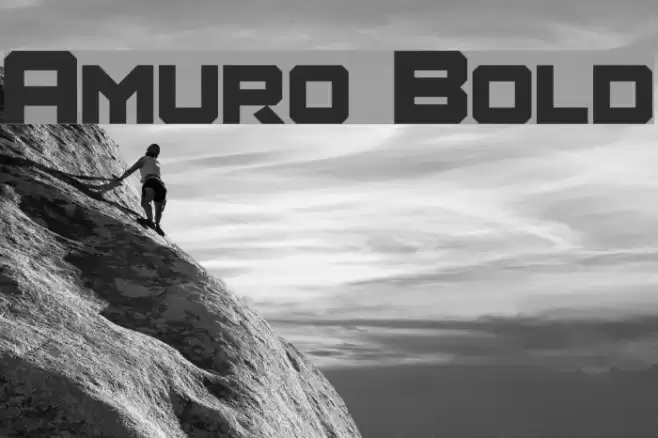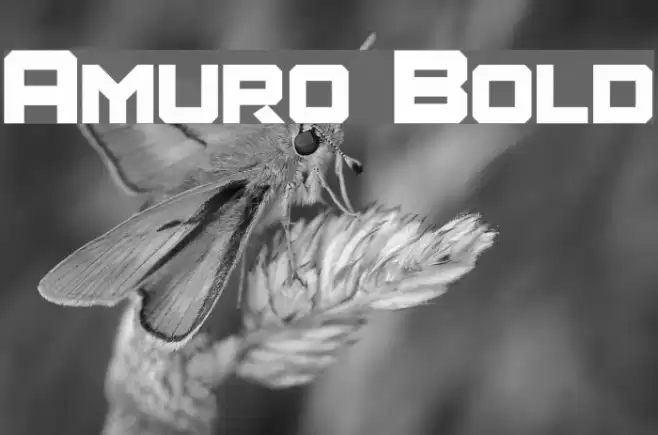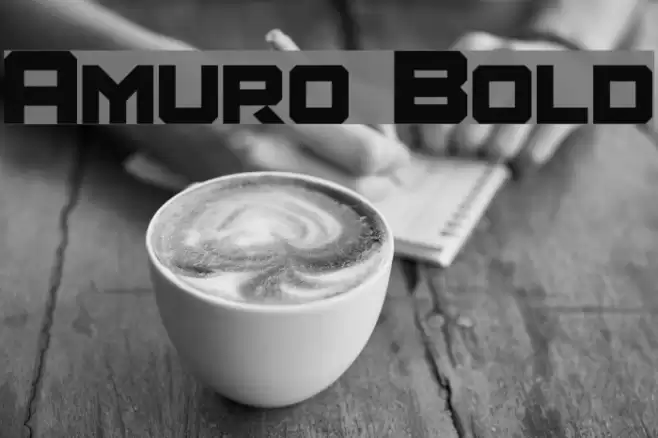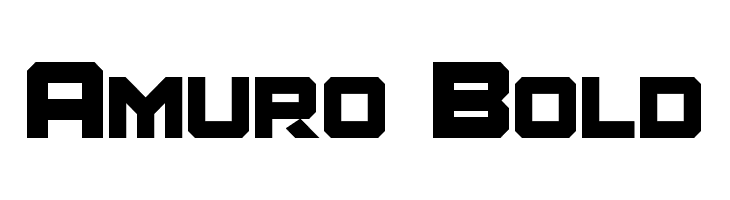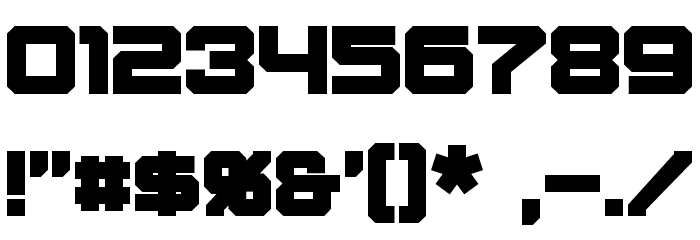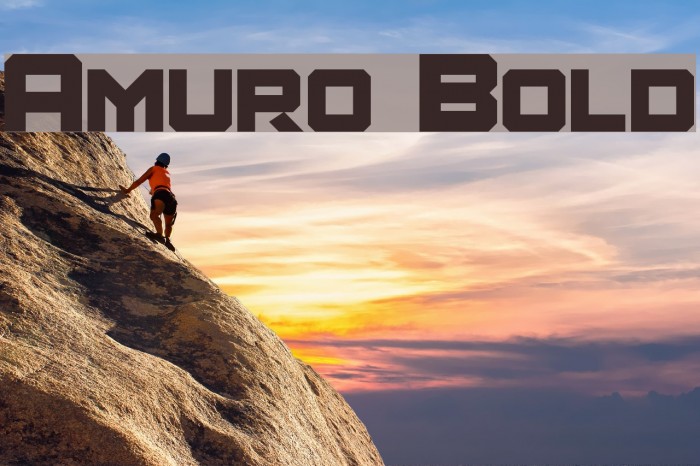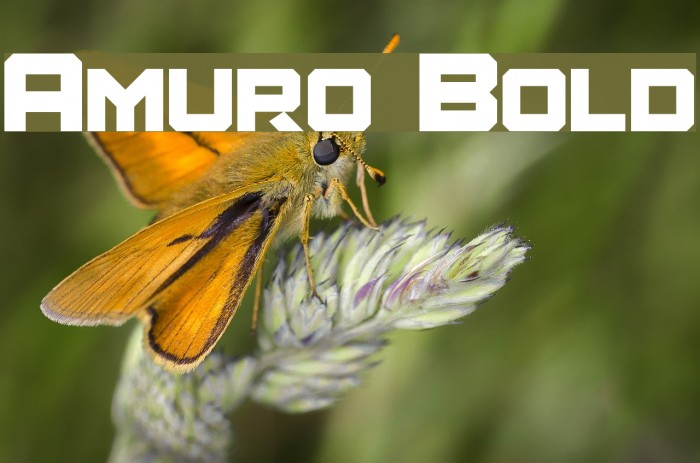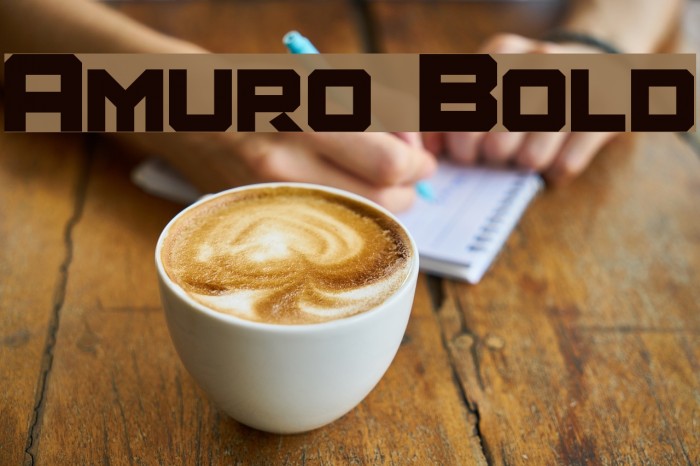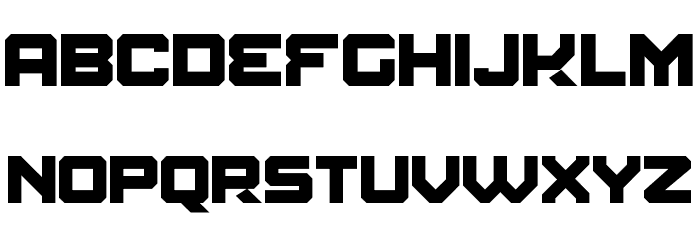
Amuro Bold Font
Amuro Bold Description
This font features a bold, geometric design with a futuristic and industrial feel. The characters are constructed with sharp angles and straight lines, giving them a strong and assertive appearance. The uppercase letters are uniform in height, while the lowercase letters maintain a consistent style, enhancing readability. The numbers and special characters follow the same design principles, ensuring a cohesive look across all text elements. This font's boldness and unique style make it suitable for projects that require a modern and impactful visual statement.
A bold, geometric font with a futuristic and industrial style from Uncategorized fonts.
- Proposed Projects: Ideal for branding, posters, video game graphics, and technology-related designs.